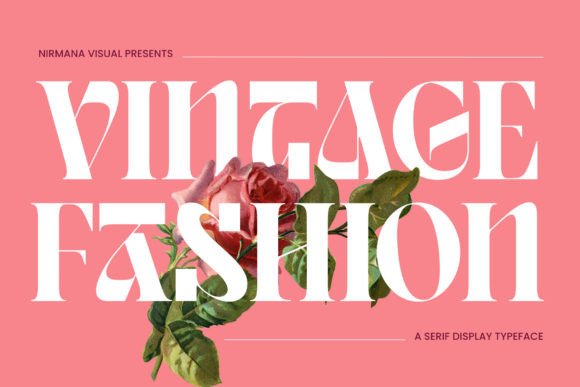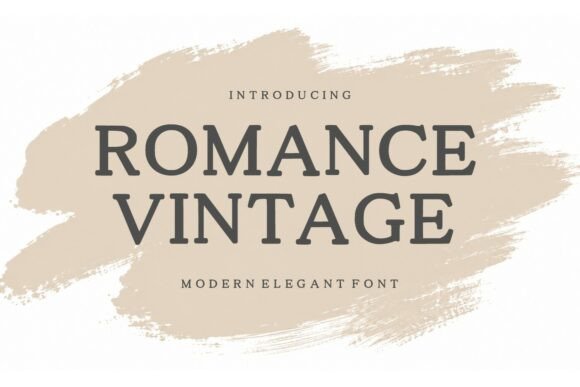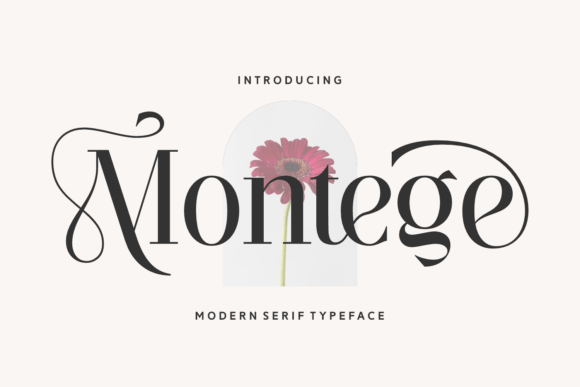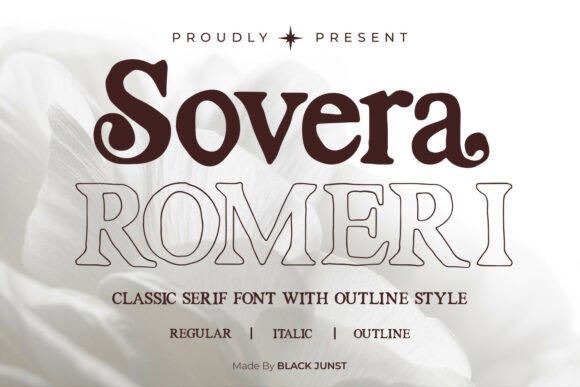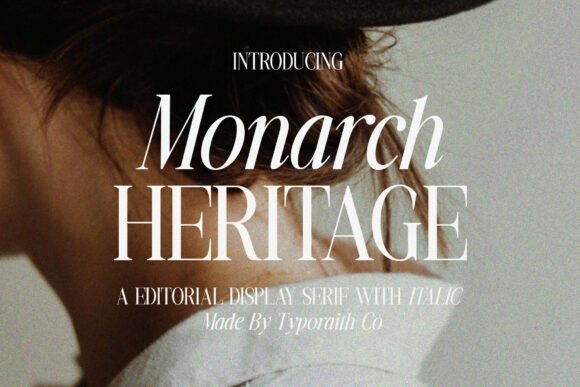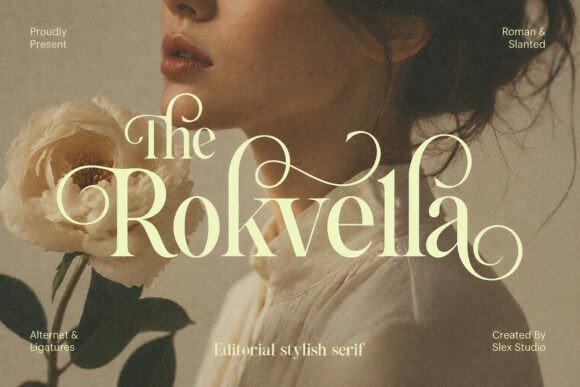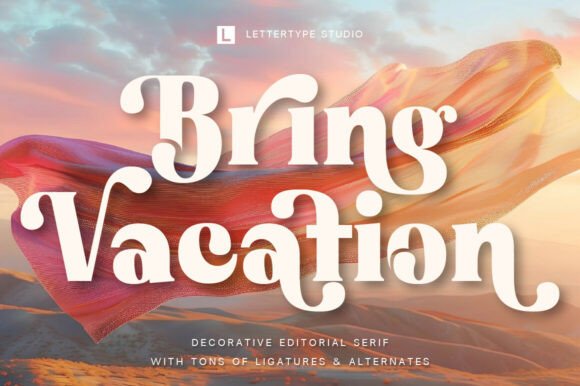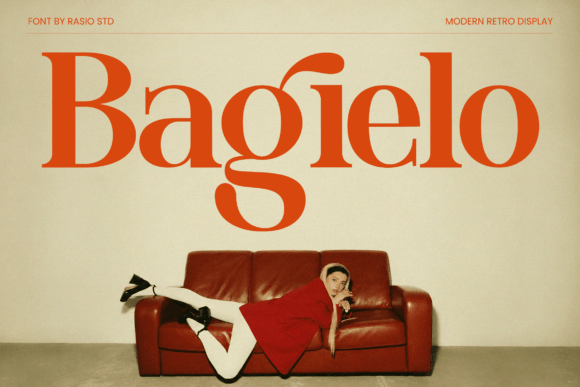
17 Charming Vintage Serif Fonts for Logos (2026)
The best vintage serif fonts for logos borrow a feeling from the past without looking dated. A touch of old-style warmth or retro contrast tells a customer a brand has roots, which is gold for heritage, craft and lifestyle labels. So vintage serif fonts for logos are chosen for the era they evoke as much as their shape.
This guide sorts 17 fonts by style, classic heritage serifs, editorial display faces, high-contrast moderns and retro options, so you can match the era to your brand.
How to use vintage serif fonts for logos
A vintage look works best in small doses. Here is how to keep vintage serif fonts for logos from tipping into costume.
- One era: pick a single period, renaissance, deco, mid-century, and stay in it.
- Modern layout: set a vintage serif in clean, current spacing so it reads intentional.
- Quiet partner: pair the vintage face with a plain sans for the practical text.
- Test small: some retro detailing breaks up at logo size, so check it shrinks well.
Classic heritage serifs for logos
Start here. These classic vintage serif fonts for logos channel old-style warmth, ideal for heritage and craft brands.
Vintage Fashion
Vintage Fashion draws on renaissance design for old-style charm. Among vintage serif fonts for logos it channels a deep heritage feel, suiting a brand that wants to look centuries-old. The classic forms read warm and established. Use it for the wordmark at a generous size and a clean sans for the rest. For a heritage or artisan brand that wants a truly old-world serif logo, Vintage Fashion is a characterful font worth trying.
Romance Vintage
Romance Vintage is a modern serif that blends timeless warmth with a romantic touch. Among these vintage serifs it is the softest heritage option, suiting beauty, bridal and lifestyle brands that want nostalgia with grace. The gentle forms read warm at size. Use it for the name and headers with a plain sans below. For a brand that wants a romantic, vintage-leaning serif logo, Romance Vintage is a lovely font worth a closer look.
Montege
Montege is a sophisticated serif built to bring an air of luxury. Among vintage serif fonts for logos it leans upmarket-heritage, suiting a premium brand that wants old-world prestige. The refined forms read expensive and established. Use it for the wordmark and a clean sans for detail. For a premium brand that wants a luxurious vintage serif logo, Montege is a graceful font worth a look.
Sovera Romeri
Sovera Romeri is a serif family blending classic elegance with modern usability. Among vintage serif fonts for logos the family format is the win, giving matching cuts for the wordmark and supporting text in one heritage voice. Use a heavier cut for the name and a lighter one for detail. The coordinated styles keep an identity tidy. For a brand that wants a coordinated vintage serif system, Sovera Romeri is a smart family worth trying.
Huntro – Elegant Retro Serif
Huntro is an elegant retro serif that bridges classic tradition and modern innovation. Among vintage serif fonts for logos it is a graceful all-rounder, with warm retro detailing that still reads clean at logo size. Use it for the wordmark and a plain sans for detail. The vintage flavour reads as warmth, not costume. For a heritage or craft brand that wants a retro serif logo that stays legible, Huntro is a charming font worth a close look.
Editorial vintage display serifs
For a magazine-meets-vintage feel, these editorial display serifs bring dramatic, nostalgic character to a wordmark.
Monarch Heritage
Monarch Heritage is an elegant, modern editorial display serif. Among editorial vintage serif fonts for logos it brings a magazine-grade, regal character to a wordmark or headline. The refined display forms read dramatic at size. Use it for the name and a plain sans for the rest. For a brand that wants an editorial, heritage-leaning display serif logo, Monarch Heritage is a striking font worth a closer look.
The Rokvella
The Rokvella is an editorial serif that blends classic elegance with femininity. Among vintage serif fonts for logos it suits beauty and lifestyle brands wanting a soft, vintage-editorial wordmark. The graceful forms read romantic at size. Use it for the name and headers, with a clean sans for detail. For a feminine brand that wants an editorial vintage serif logo, The Rokvella is a lovely font worth trying.
Bring Vacation
Bring Vacation is a decorative editorial serif with artistic curves and vintage-inspired elegance. Among these vintage serifs it brings a stylish, magazine-cover feel with expressive ligatures. The decorative forms read best large where the detail shows. Use it for the wordmark and short headers with a plain sans. For a fashion or lifestyle brand that wants a decorative vintage-editorial logo, Bring Vacation is an expressive font worth a look.